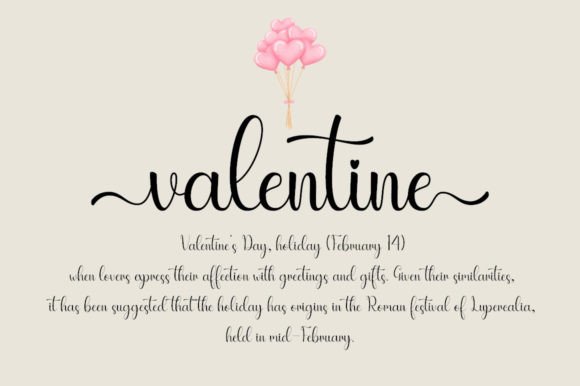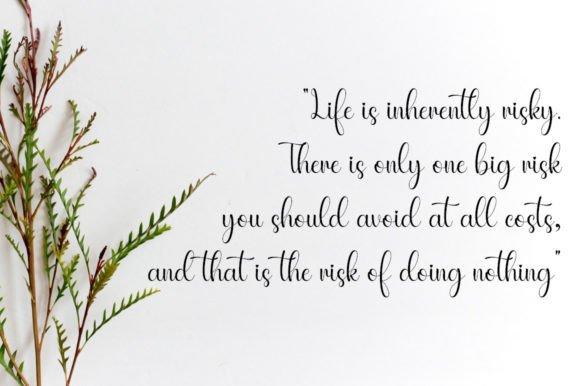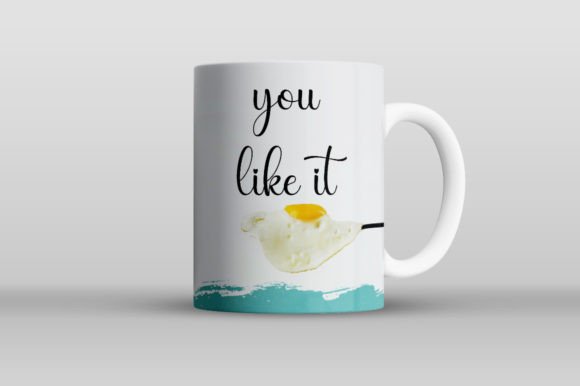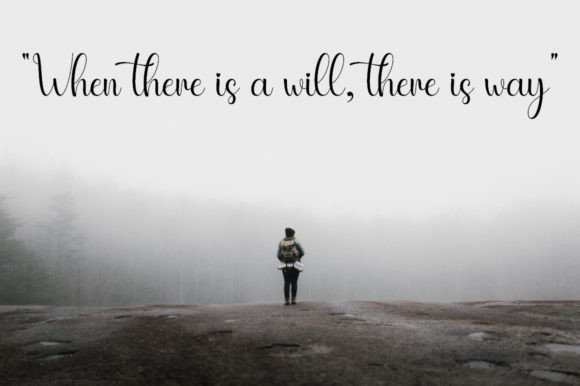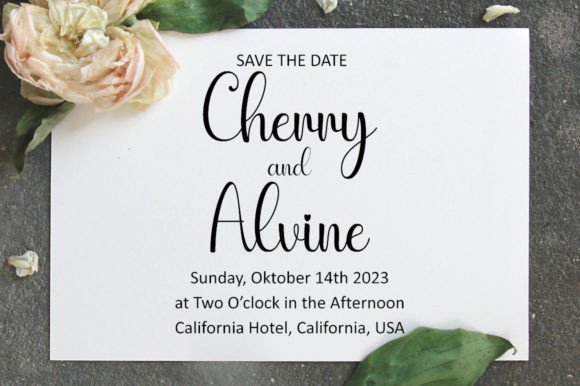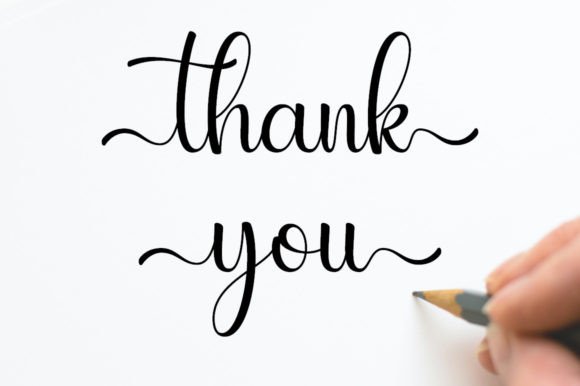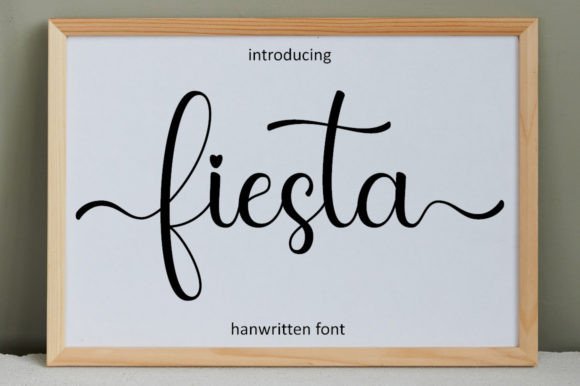
Introducing Fiesta Font: The Perfect Addition to Your Design Collection
Are you on the hunt for a font that exudes elegance, sophistication, and a touch of playfulness? Look no further than Fiesta Font, a delicate, elegant, and flowing handwritten font that’s perfect for a wide range of projects. With its incredibly distinct and timeless style, Fiesta Font is sure to capture the hearts of designers and crafters alike.
What Makes Fiesta Font So Special?
Fiesta Font boasts a unique and captivating style that’s both refined and whimsical. Its flowing lines and delicate curves make it perfect for creating beautiful, eye-catching designs that are sure to stand out. Whether you’re working on a branding project, a wedding invitation, or a craft project, Fiesta Font is the perfect choice.
Key Features of Fiesta Font
- Delicate and Elegant: Fiesta Font features a delicate, elegant, and flowing design that’s perfect for creating sophisticated and refined designs.
- Handwritten Style: With its handwritten style, Fiesta Font adds a touch of personality and whimsy to any project.
- Timeless Style: Fiesta Font’s incredibly distinct and timeless style ensures that your designs will never go out of fashion.
Why Designers and Crafters Love Fiesta Font
Designers and crafters love Fiesta Font for its versatility and ease of use. Whether you’re creating a logo, a brochure, or a craft project, Fiesta Font is the perfect choice. Its flowing lines and delicate curves make it perfect for creating beautiful, eye-catching designs that are sure to stand out.
Fiesta Font is perfect for a wide range of projects, including:
- Branding: Use Fiesta Font to create a unique and memorable brand identity.
- Wedding Invitations: Add a touch of elegance and sophistication to your wedding invitations with Fiesta Font.
- Craft Projects: Fiesta Font is perfect for craft projects, such as scrapbooking, card making, and DIY crafts.
- Signage: Use Fiesta Font to create eye-catching signs and displays.
Tips for Using Fiesta Font
Here are a few tips for getting the most out of Fiesta Font:
- Experiment with Different Sizes: Fiesta Font looks great in a variety of sizes, so don’t be afraid to experiment.
- Pair with Other Fonts: Fiesta Font pairs well with a variety of other fonts, so try pairing it with some of your favorite fonts.
- Use the Swashes: Fiesta Font’s swashes are a great way to add some extra flair to your designs.